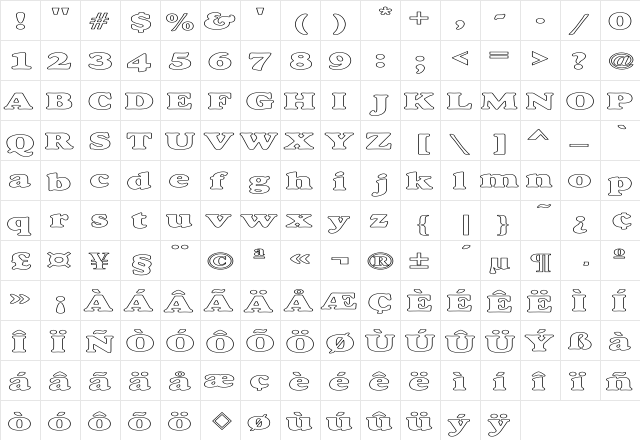
Alexuss Heavy Hollow Expanded Regular
Design Context for Alexuss Heavy Hollow Expanded Typeface
Alexuss Heavy Hollow Expanded takes a measured approach to typography — its balanced proportions and neutral character make it a reliable workhorse for both digital and print work.